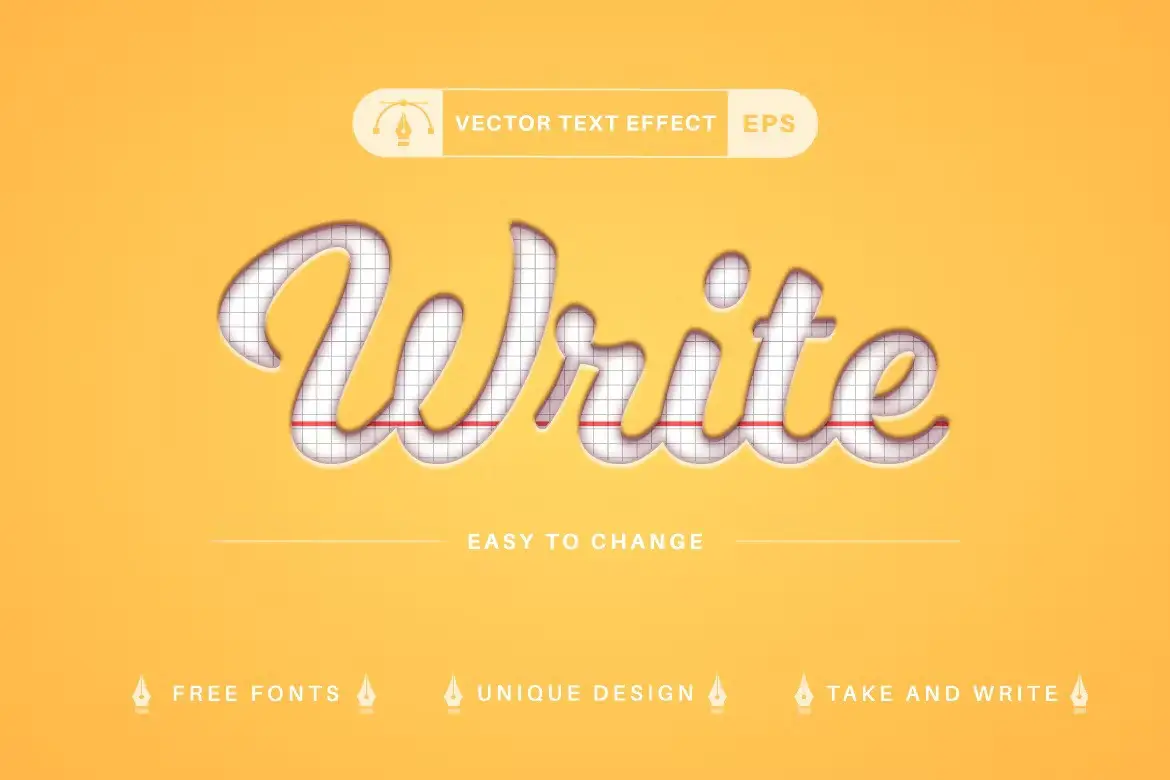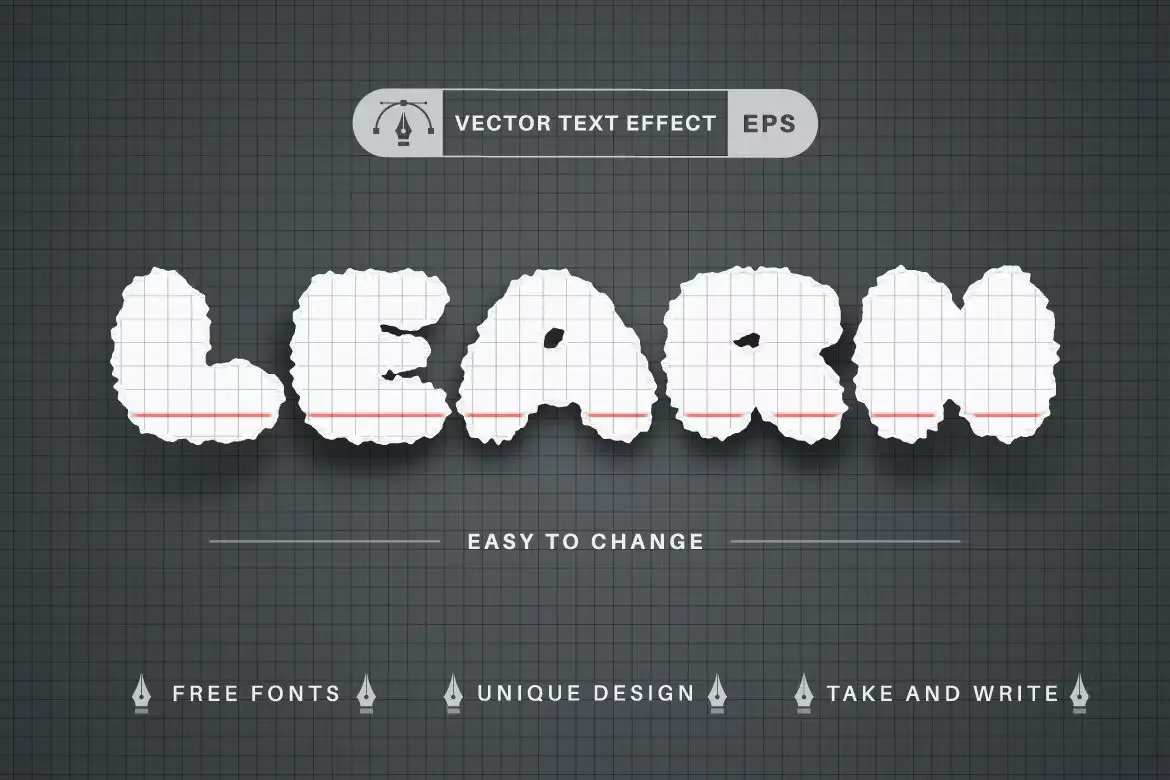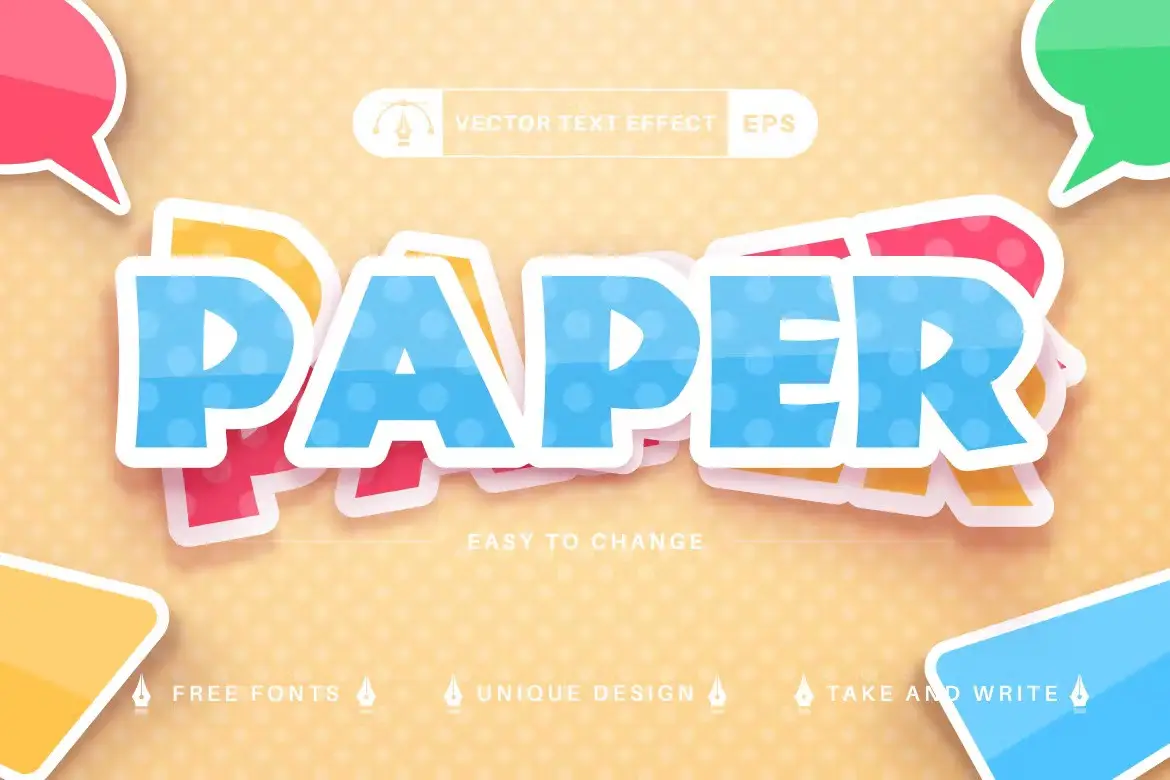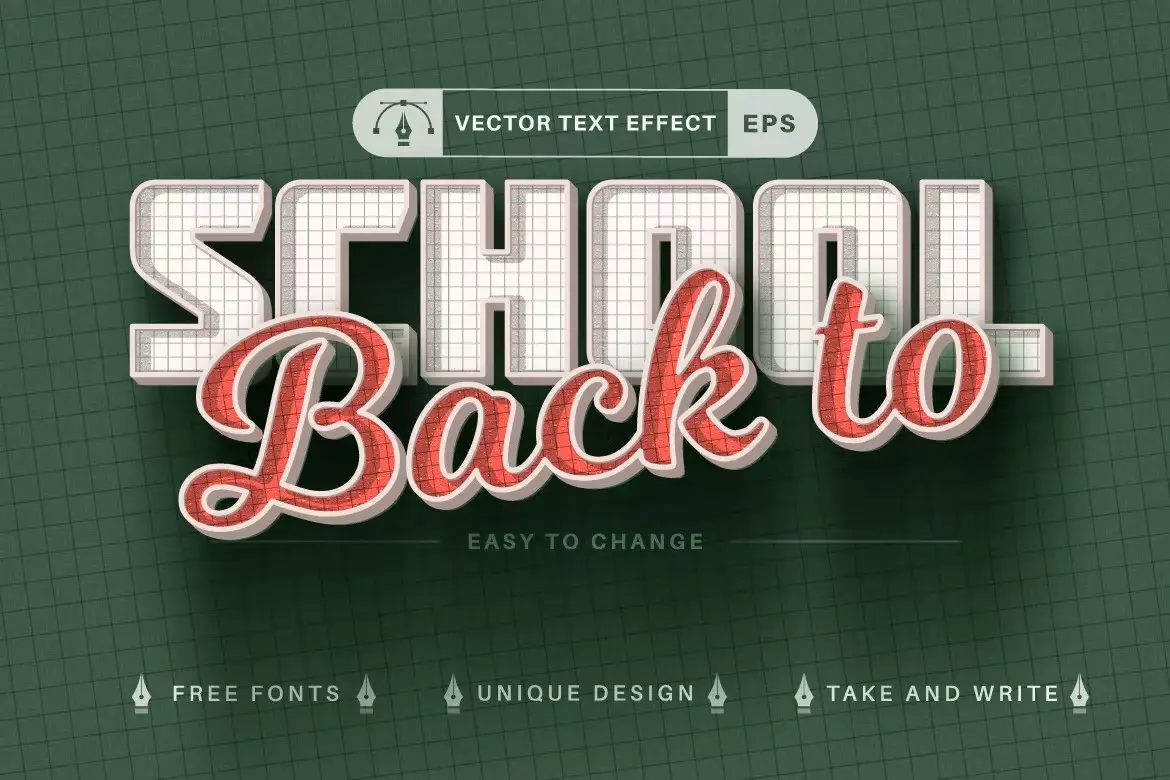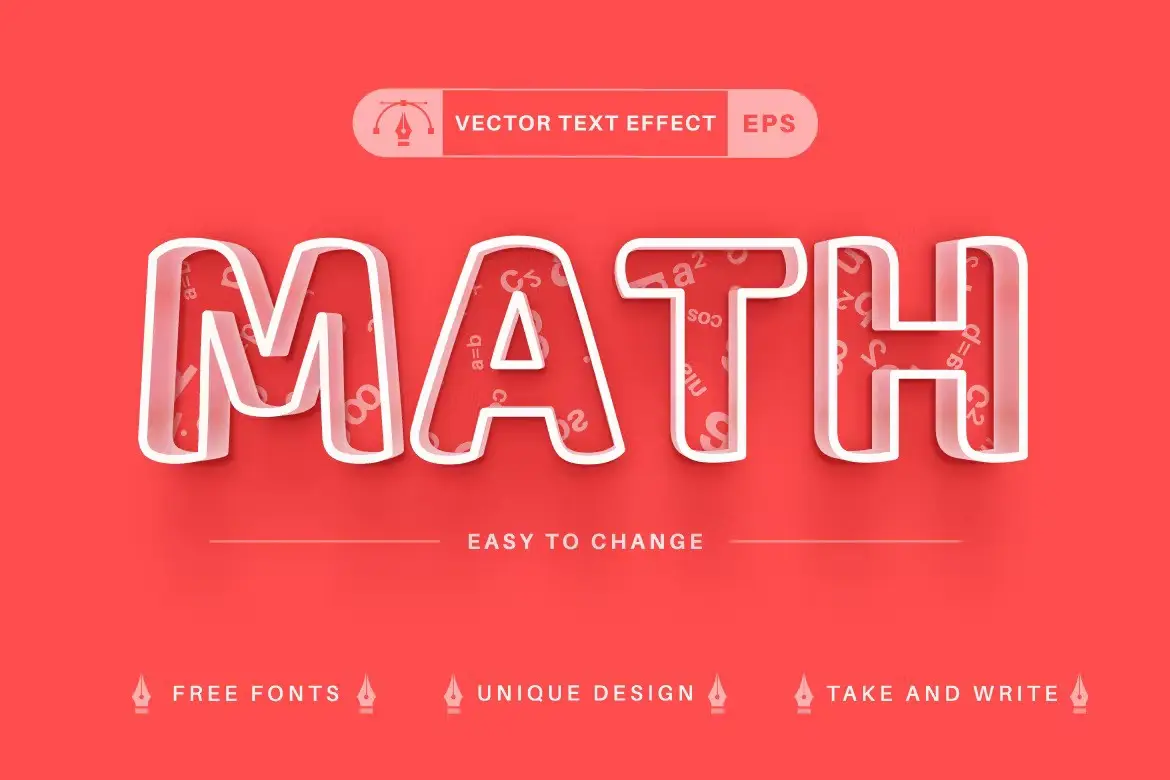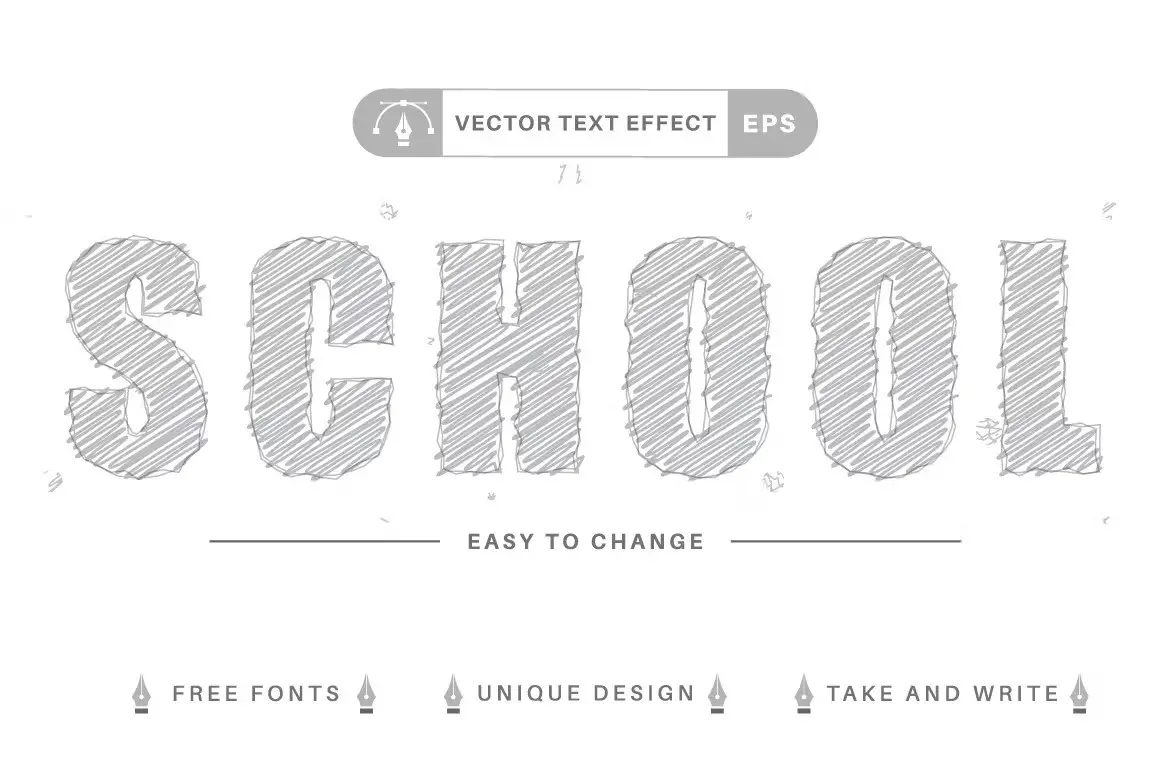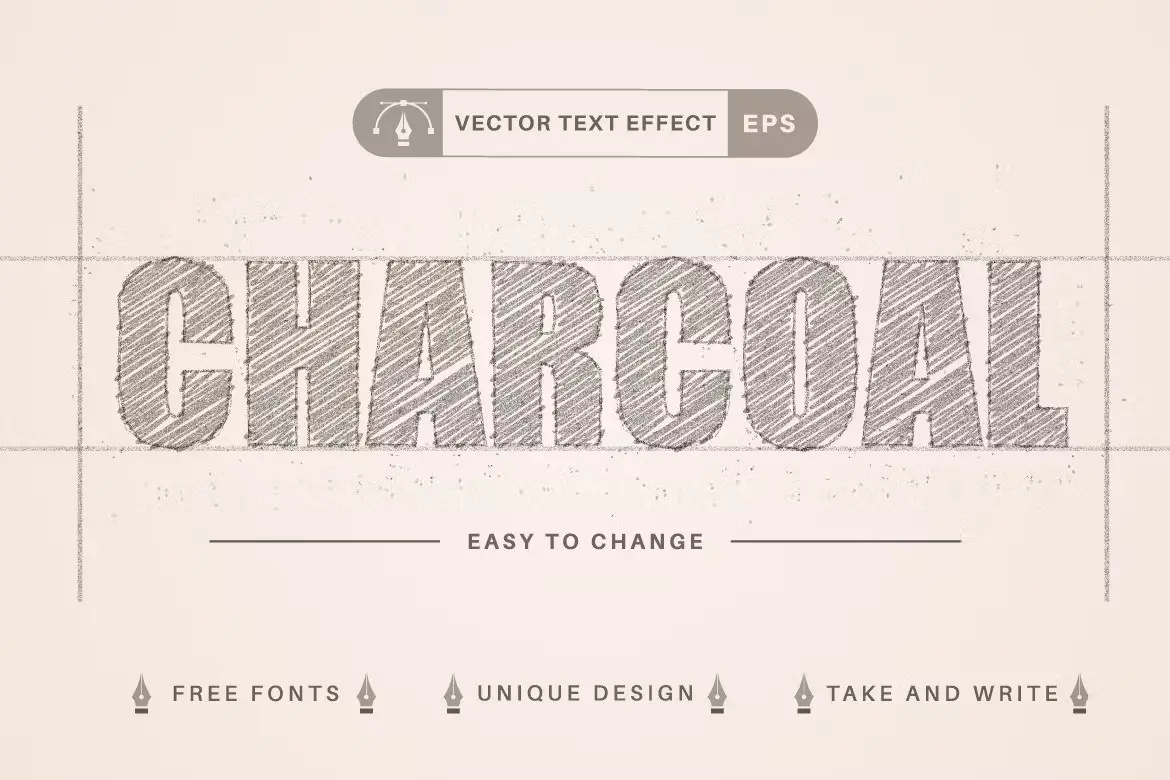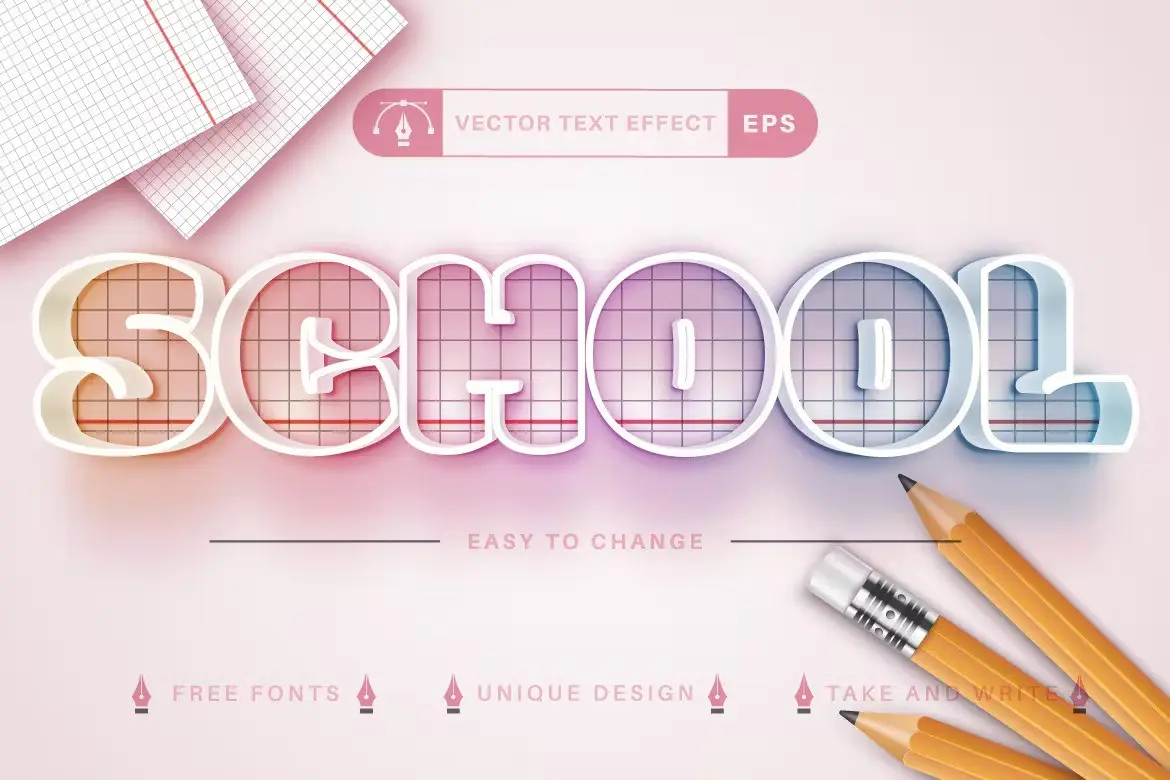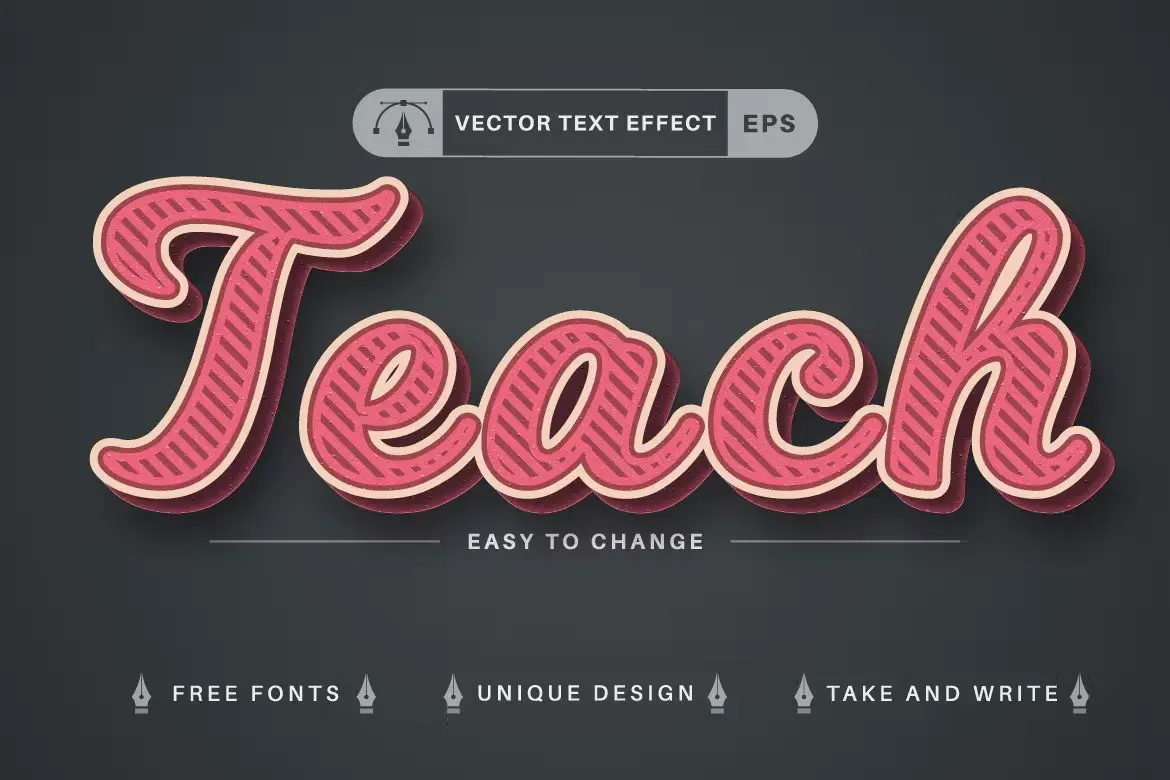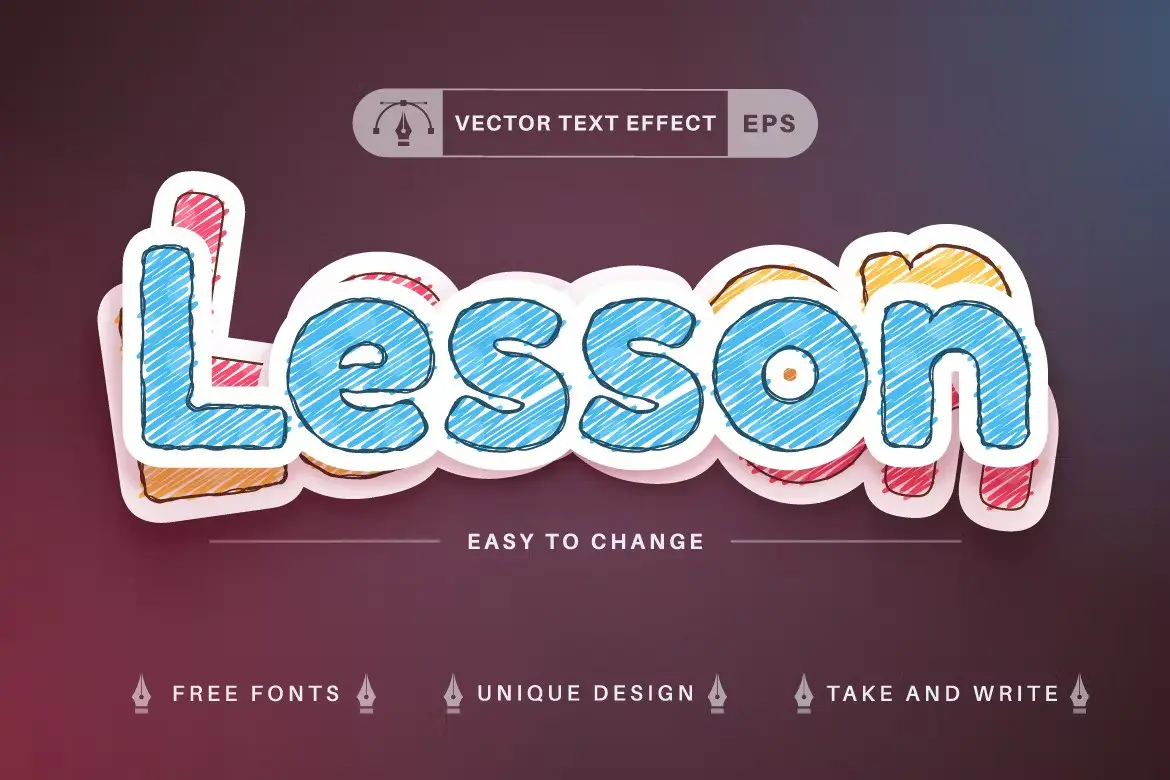
Set 10 School Editable Text Effects, Font Styles
Welcome to your creative journey with our Set 10 School Editable Text Effects. Designed with the theme of ‘Back To School’, these unique text effects allow you to express your creativity effortlessly. Whether you’re designing for educational materials, classroom projects, or personal use, these effects add a distinctive touch to your work.
This set features 10 versatile vector text effects that can be easily edited to suit your needs. Perfect for teachers, students, and designers alike, these effects are crafted to enhance any project with a fun and engaging style.
- ✅ 10 Unique Styles → A variety of designs to choose from, catering to different themes and projects.
With our Set 10 School Editable Text Effects, you gain access to professional-quality designs that can elevate your projects. These effects are not only visually appealing but also user-friendly, making them suitable for both beginners and seasoned designers. Trusted by educators and creatives worldwide, this set is your go-to solution for adding flair to your work.